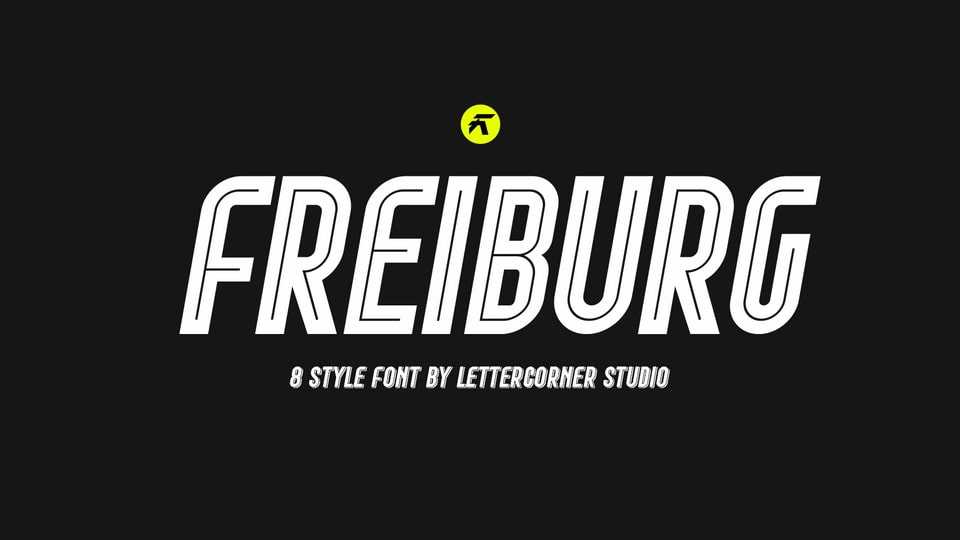
Download Freiburg font, a condensed sport typeface. This font has a clean and athletic look, glyphs and extensive Latin script support.
Designer: Trequartista Studio